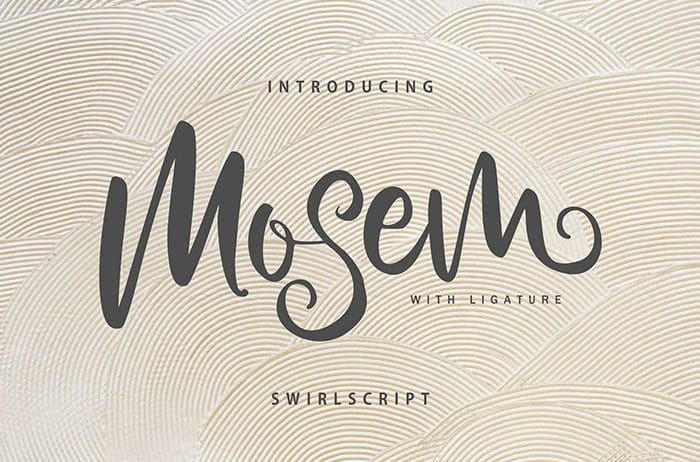
Mosem Swirl Script Font
Mosem is a gorgeous swirl script font featuring a unique calligraphic style. It will turn any design idea into a true standout. Thanks to Vunira for sharing this font. This font free for personal use only, if you need commercial use and full version please download in here.